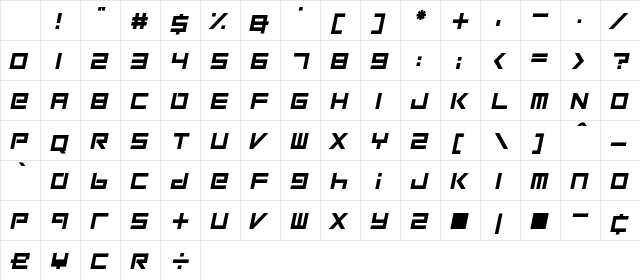
Complete Square One Bold Italic glyph index. Displaying only characters natively supported by Square One Bold Italic font.
Square One is a composed and adaptable typeface that performs quietly and consistently across a wide range of design contexts. The slanted form adds forward momentum and visual energy. Its bold stroke weight gives it real presence on the page.
Pro Tip: Use Square One for emphasis, pull quotes, and subheadings where its slanted energy can add rhythm to the layout.